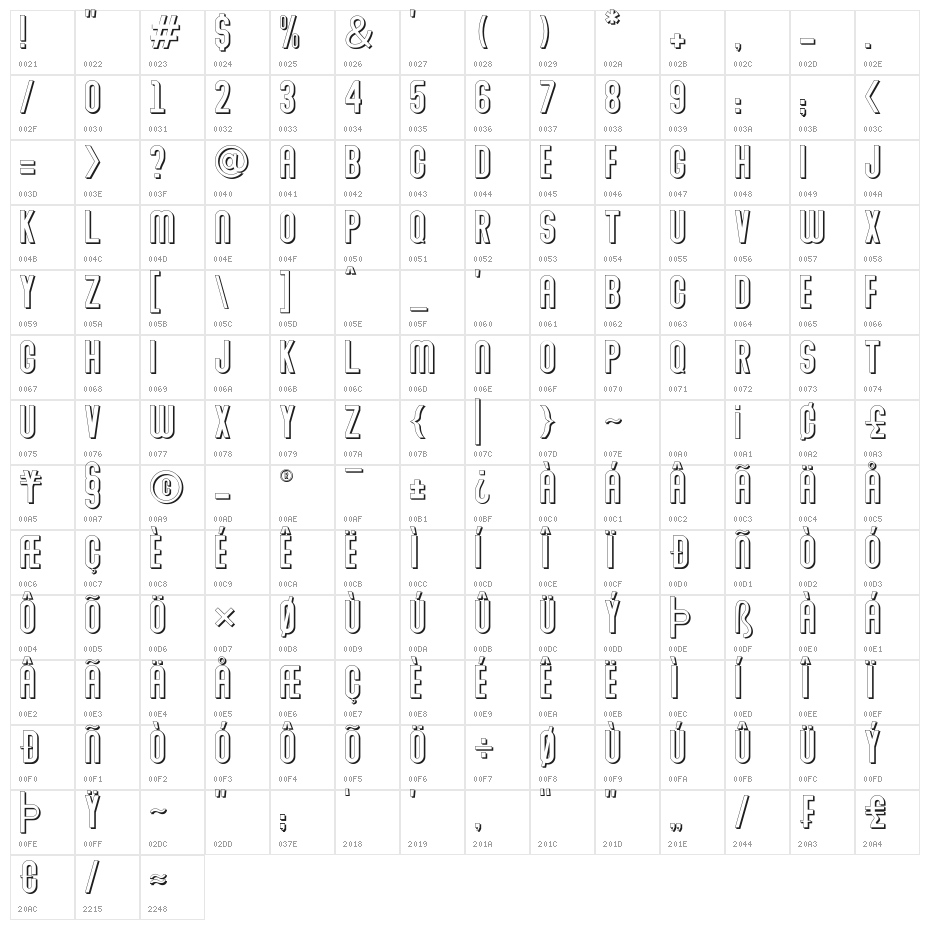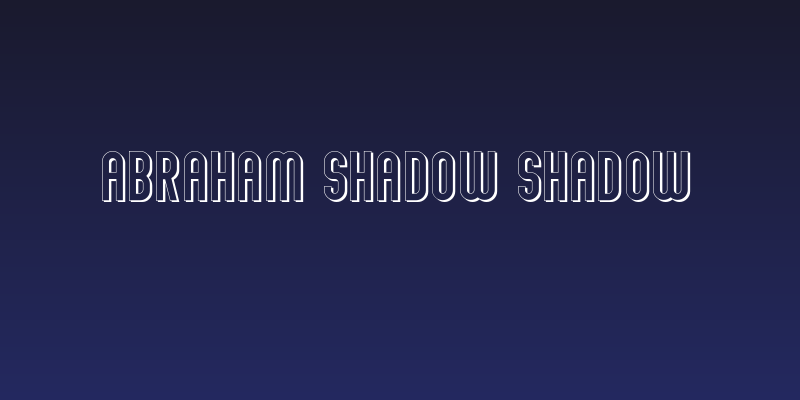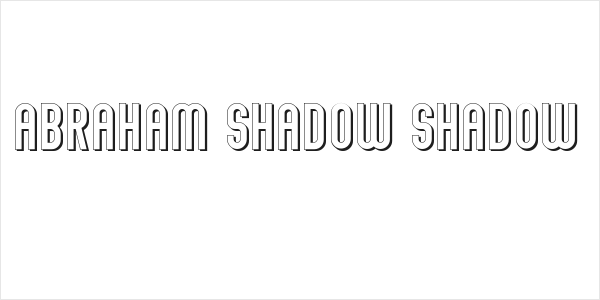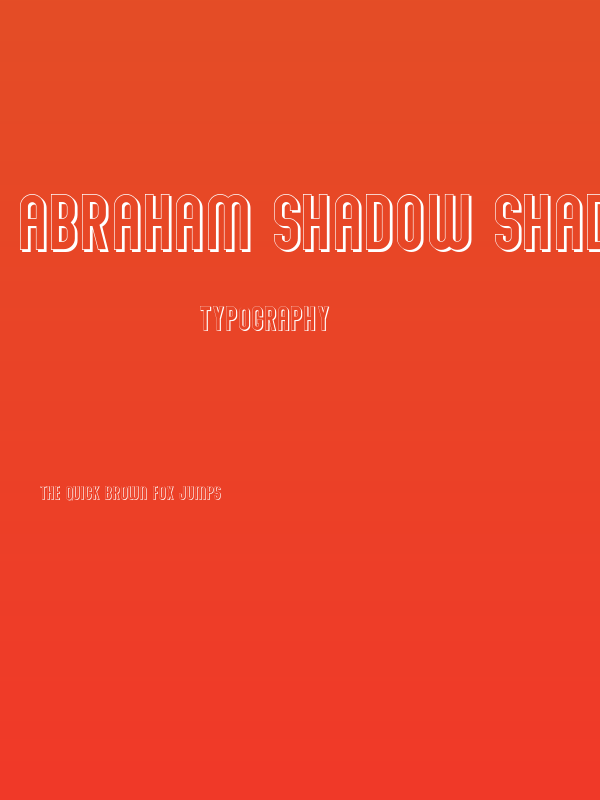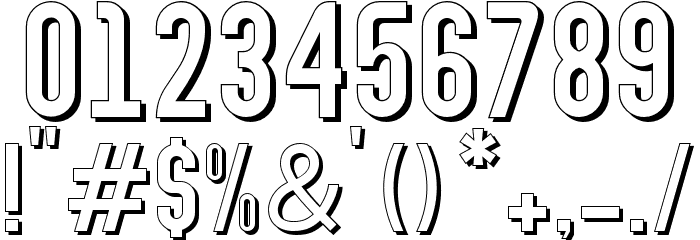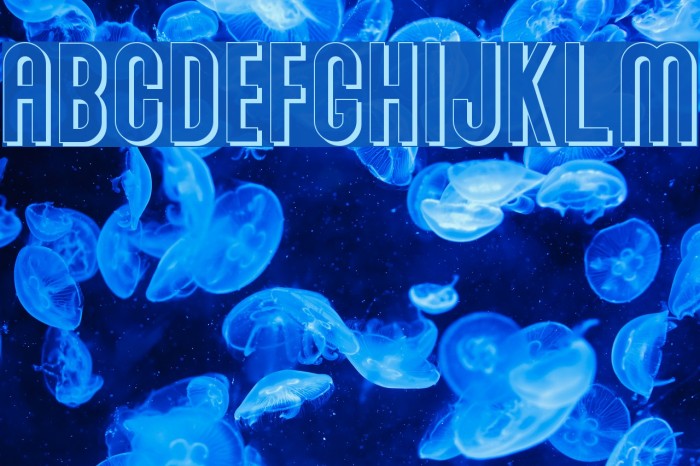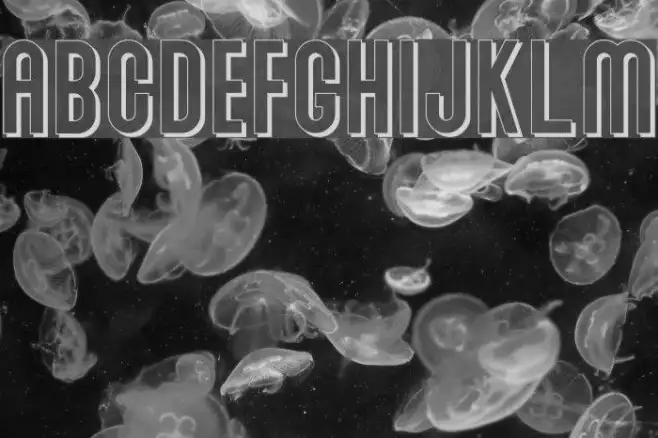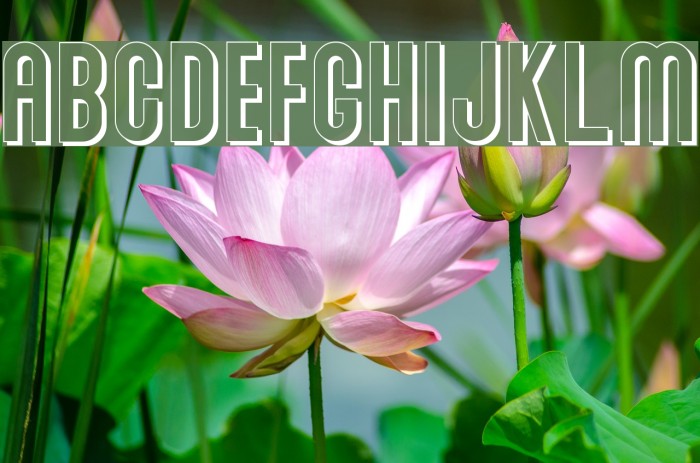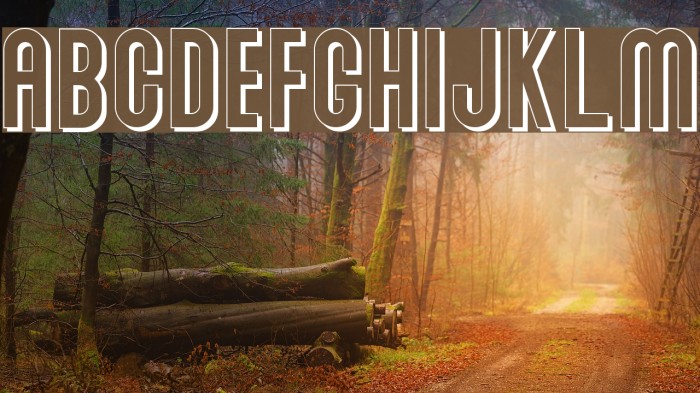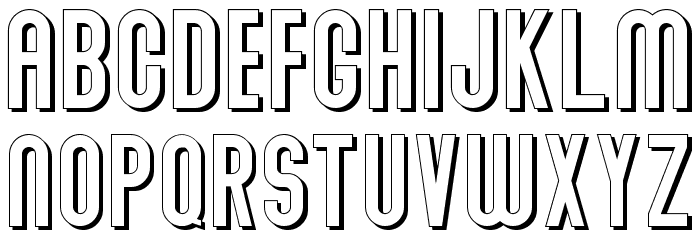
Abraham Shadow Shadow Font
Abraham Shadow Shadow Description
This font features a bold, shadowed design that gives a three-dimensional effect to each character. The letters are uppercase and have a strong, geometric structure with clean lines and a consistent stroke width. The shadow effect adds depth and a sense of movement, making it ideal for eye-catching designs. The numerals and special characters maintain the same style, ensuring uniformity across all text elements. This font is perfect for projects that require a dynamic and impactful visual presence.
| Proposed Projects | Ideal for posters, headlines, logos, and any design needing a bold, eye-catching typeface. |